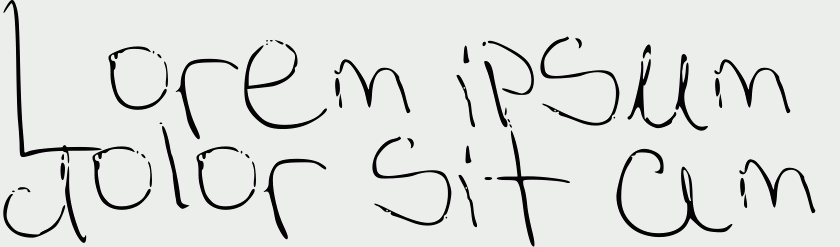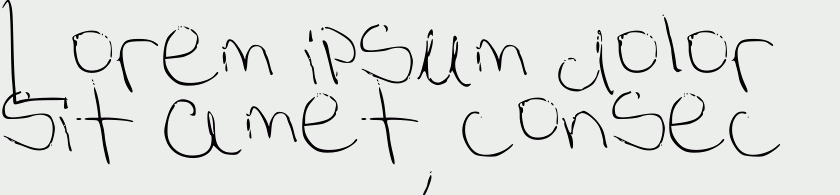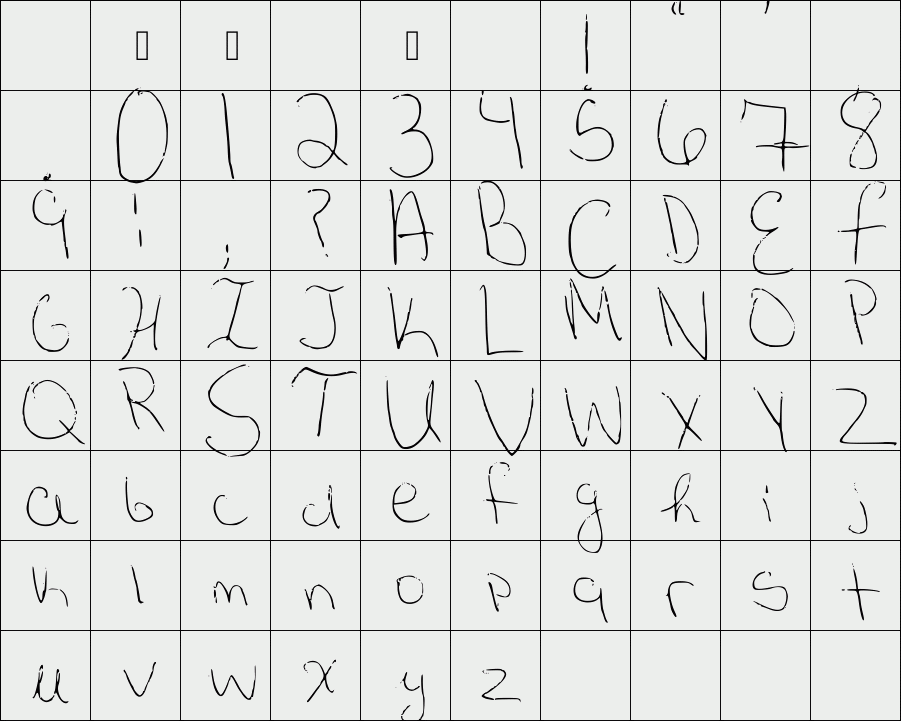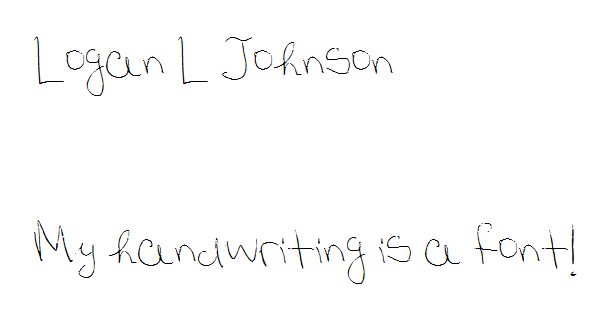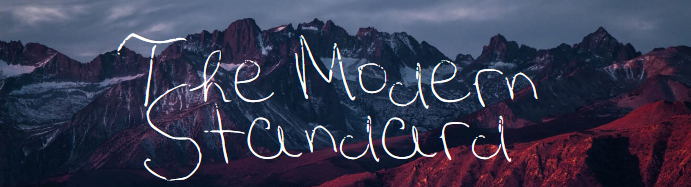
Logan L Johnson
A hand-drawn font based on the designer's actual handwriting. Great for headings, logos, and modern design in general. Best paired with Helvetica Light as the body font.